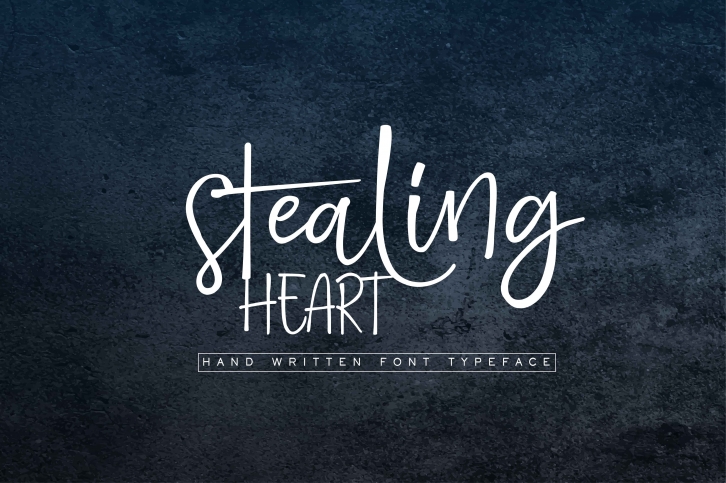
STEALING HEART is a trendy and unique font with an authentic style. It was designed by OlexStudio and it's a great choice for creative people who need such a font. It was released on October 17, 2017 and the file size is 1.52 MB. STEALING HEART will add an organic vibe to any design idea!